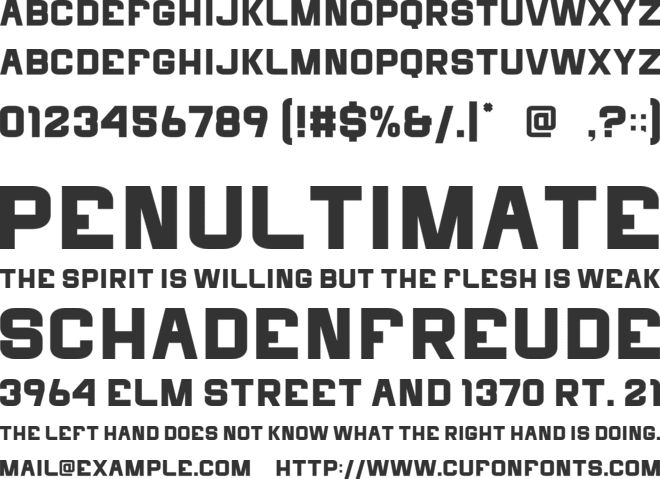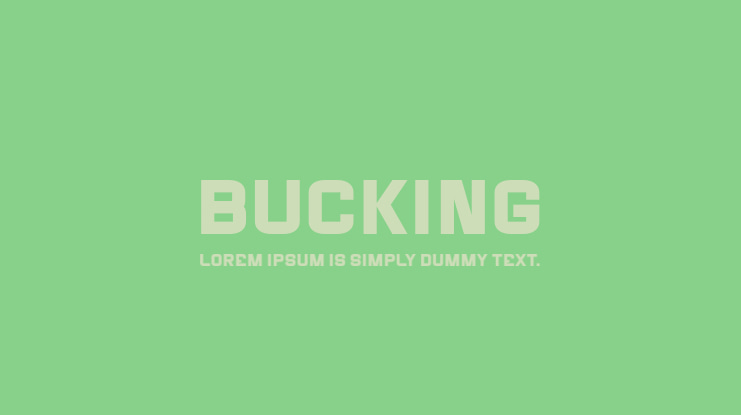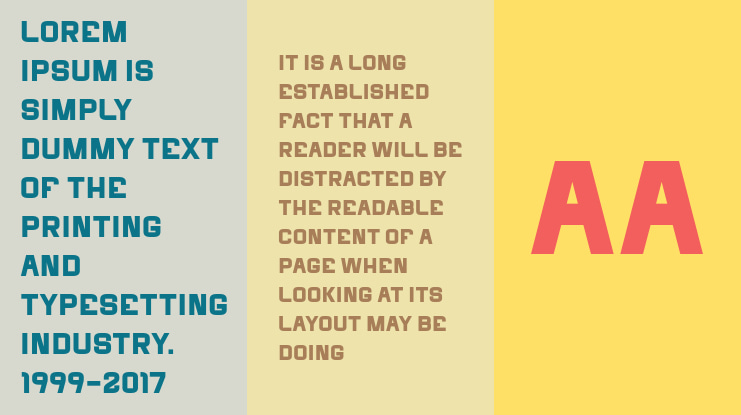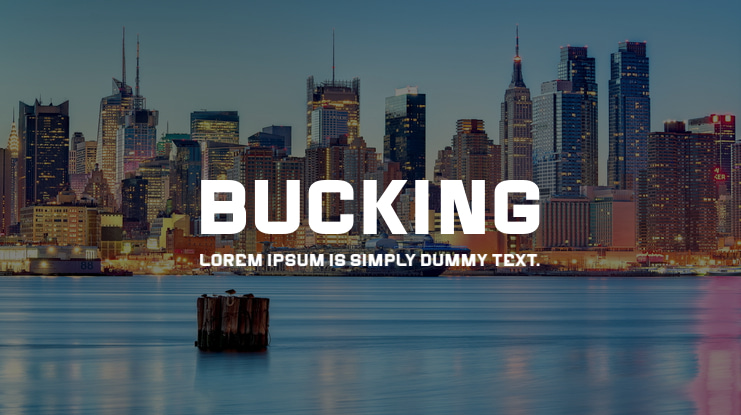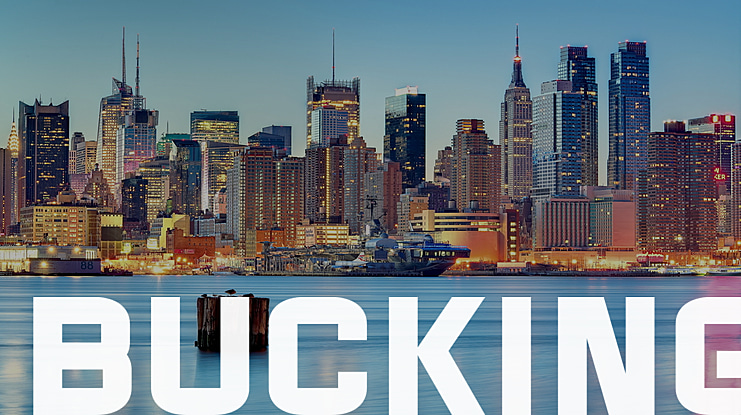
Bucking Font
This font gives a clean, strong and very elegant impression. Made from font designer named BrandSemut. Bucking is a modern typeface and futuristic, best used as a display for headings, logos, branding, magazines, product packaging and invitations. Bucking come with clean lines and smooth curves give any project an extra touch of class.